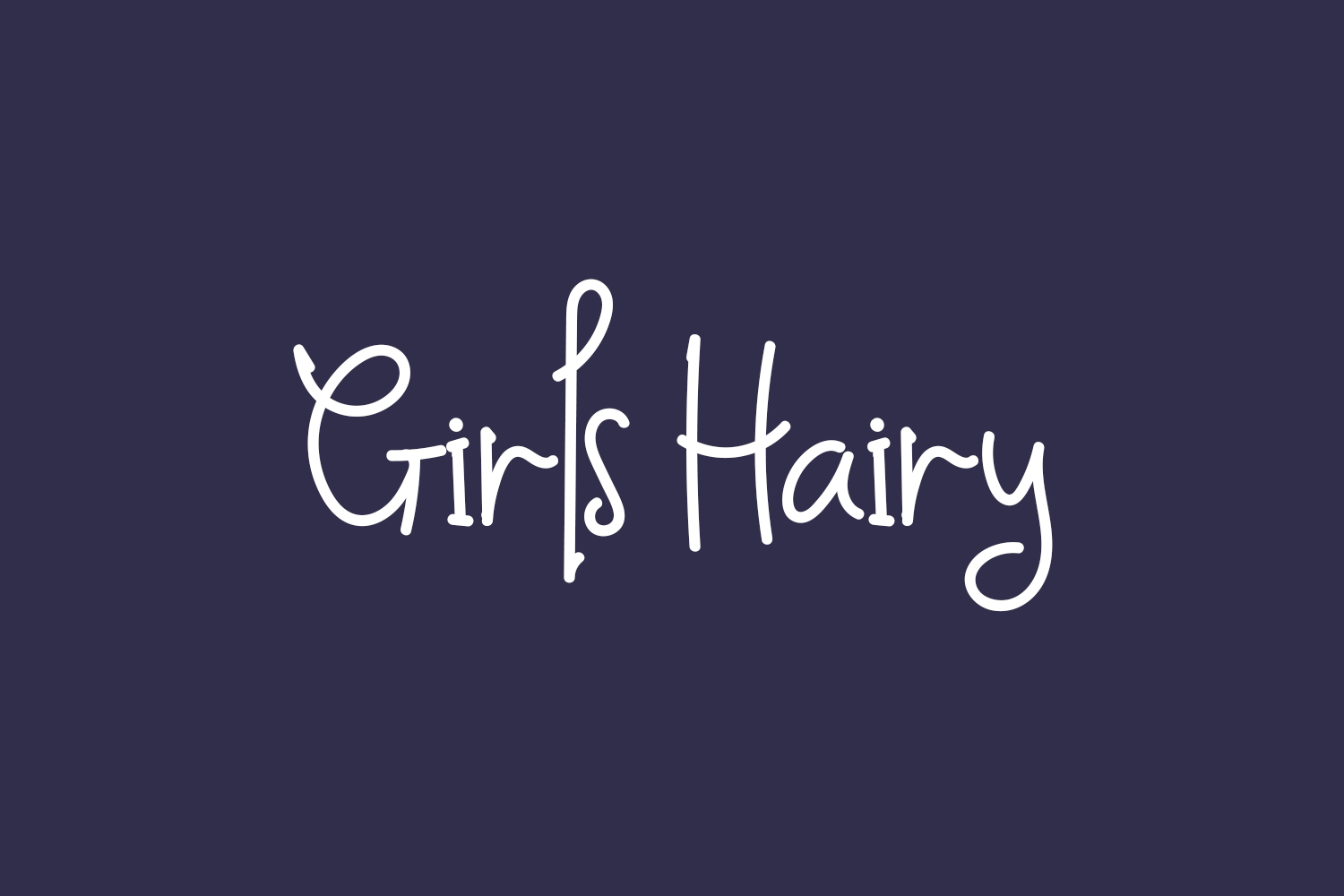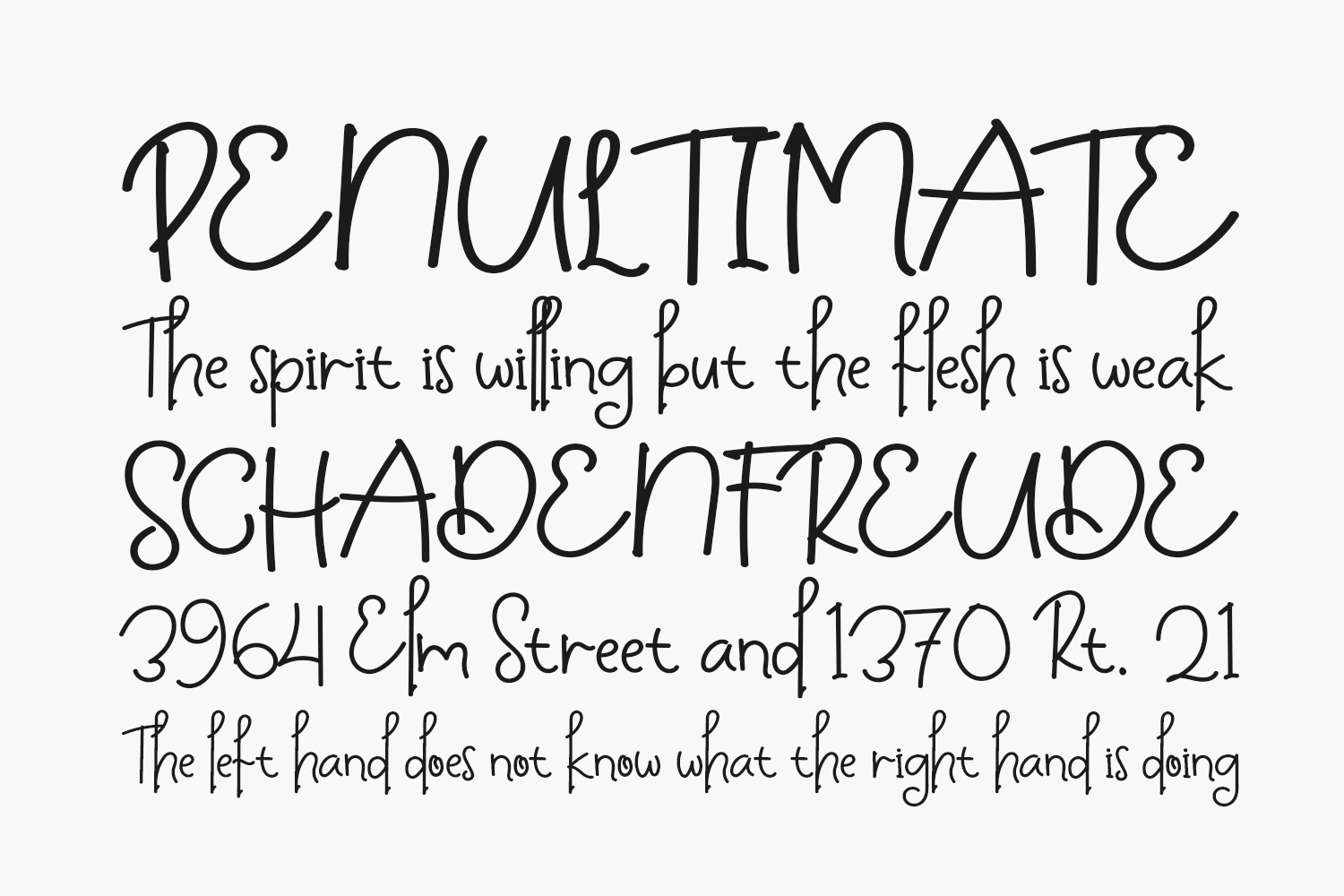
Girls Hairy Free Font is a beautiful and sweet font. It is fresh, clean, and elegant. This font will look amazing in a great number of projects, both formal and informal. It will add an incredibly joyful touch to your designs. Girls Hairy Free Font is free for personal use only. Please purchase the full version for commercial use.